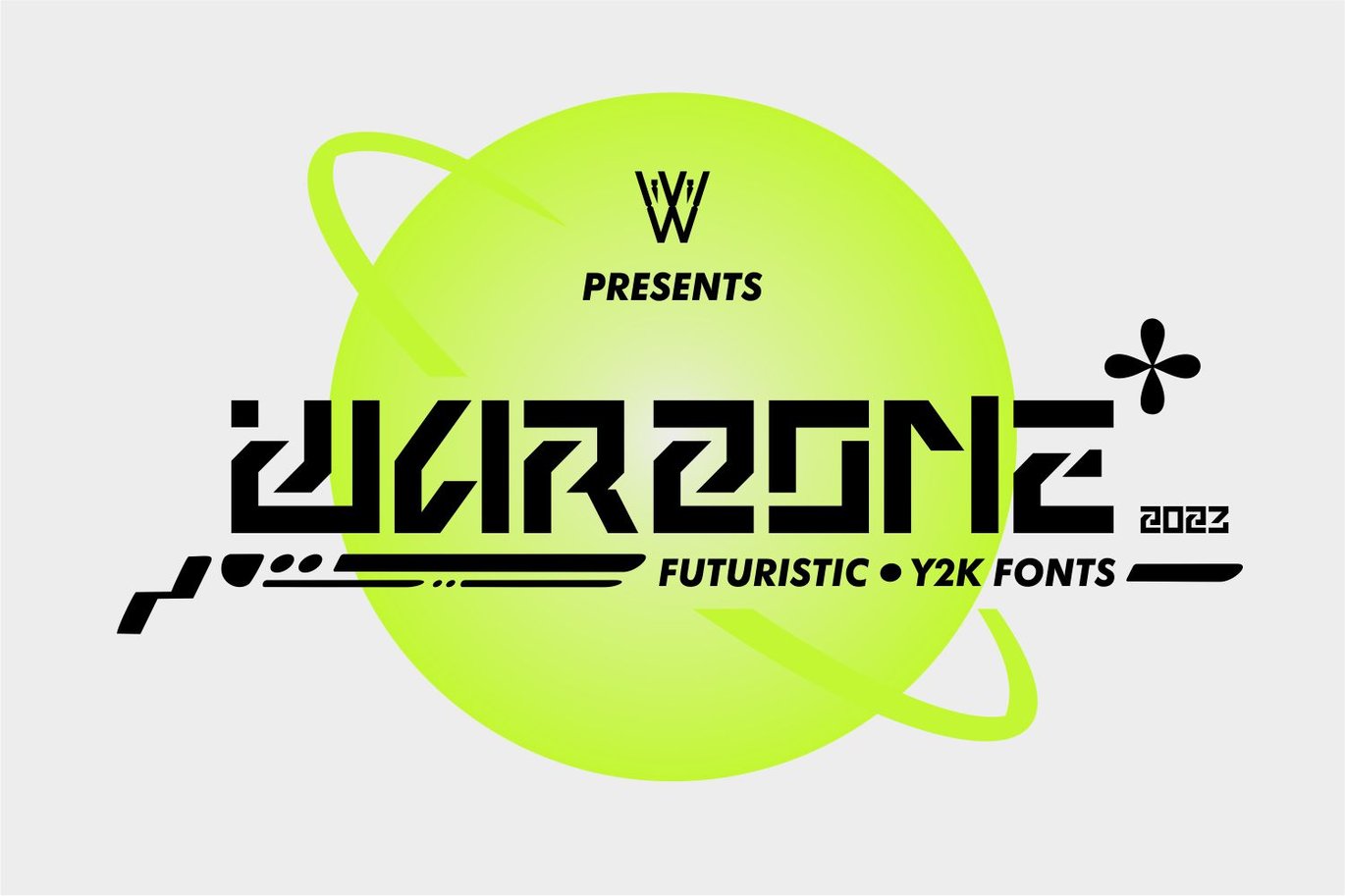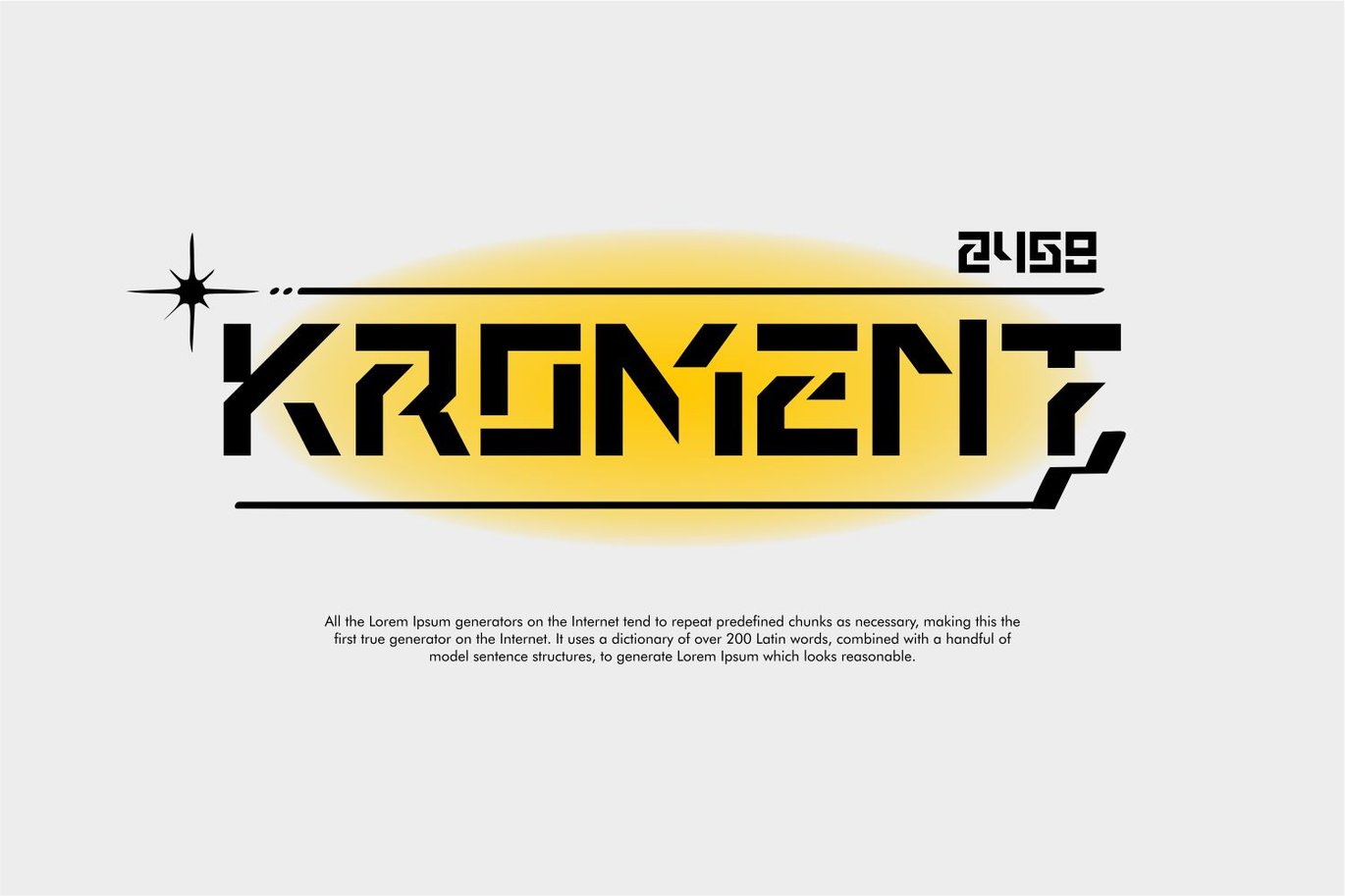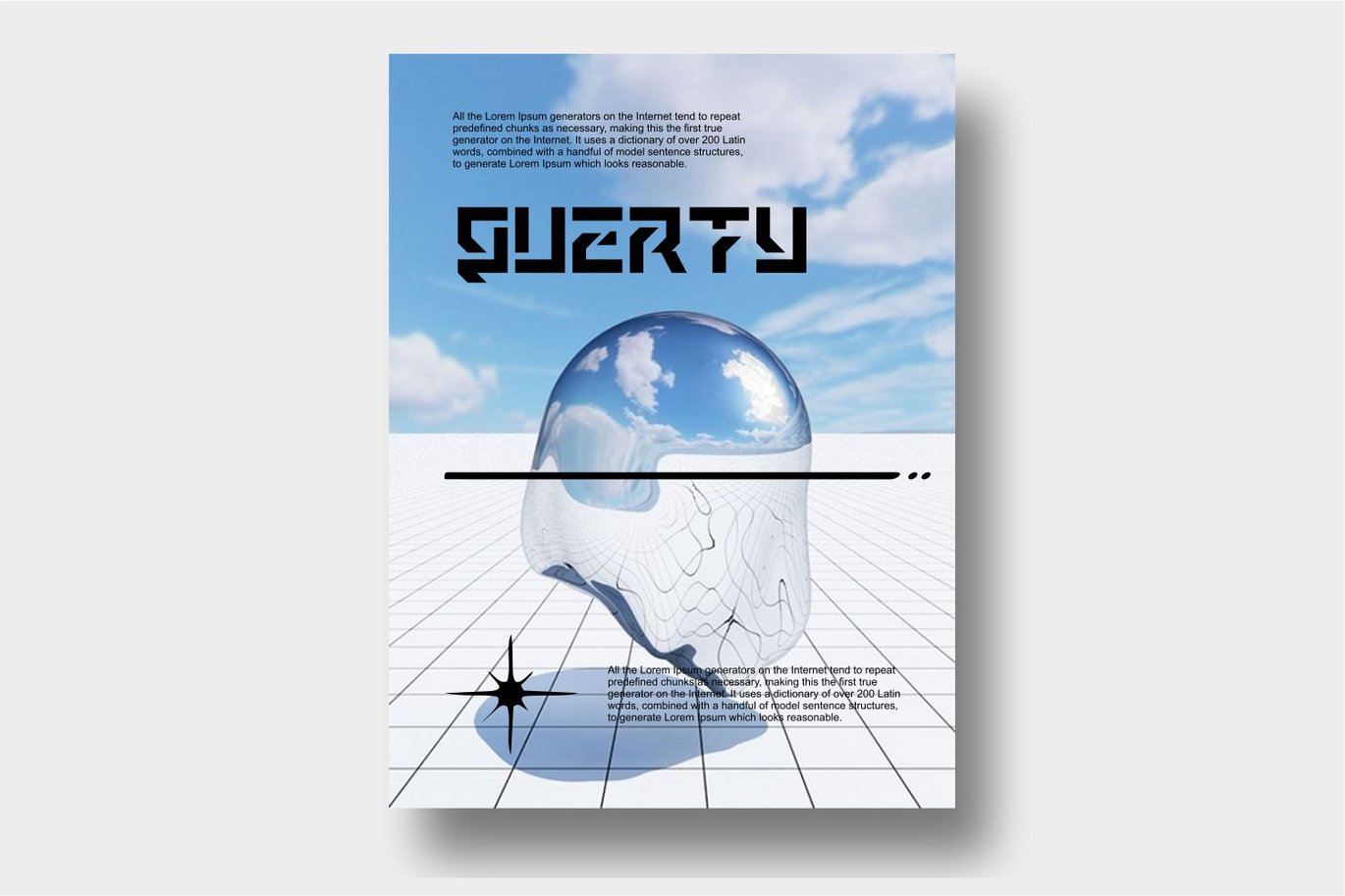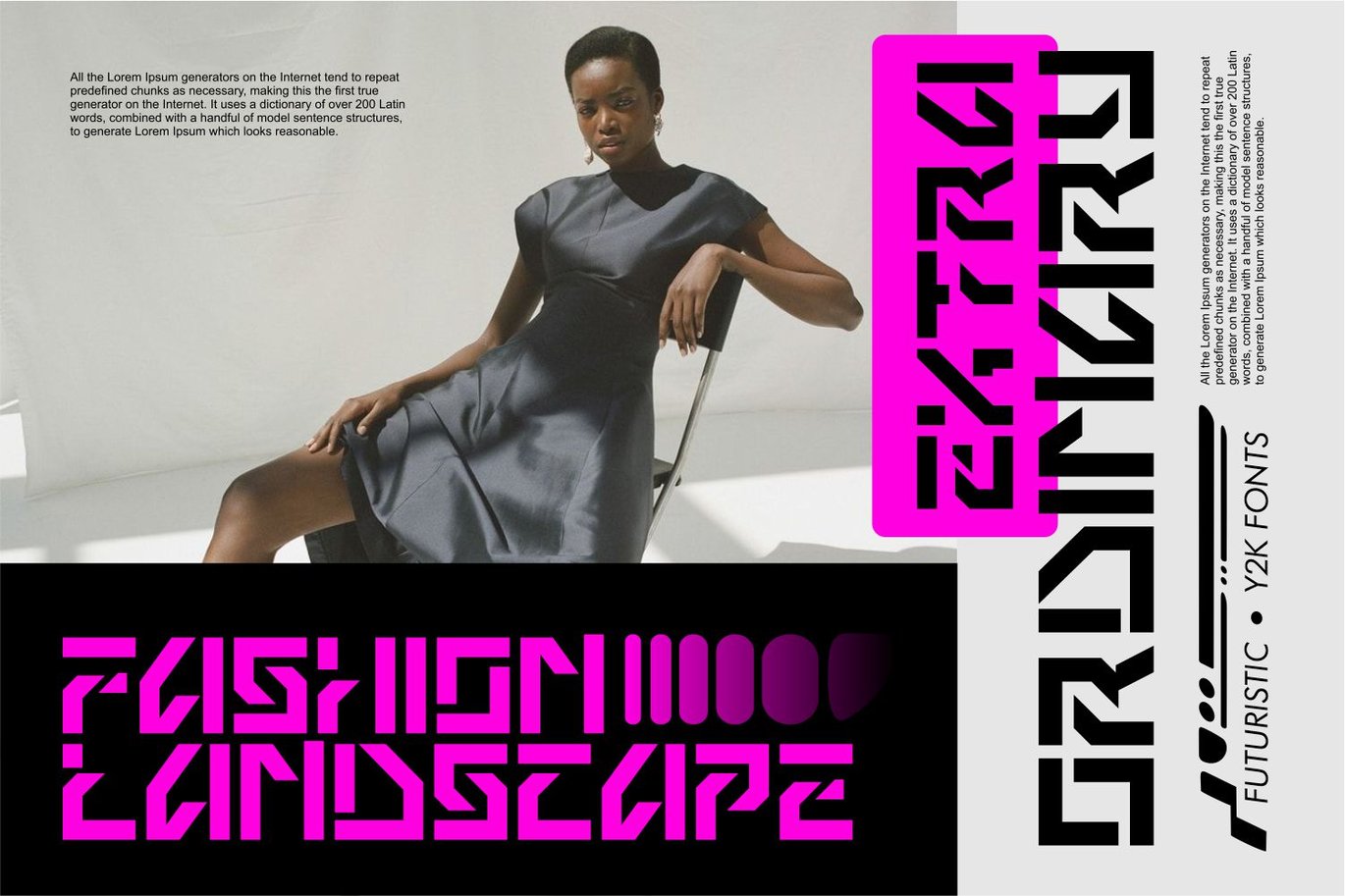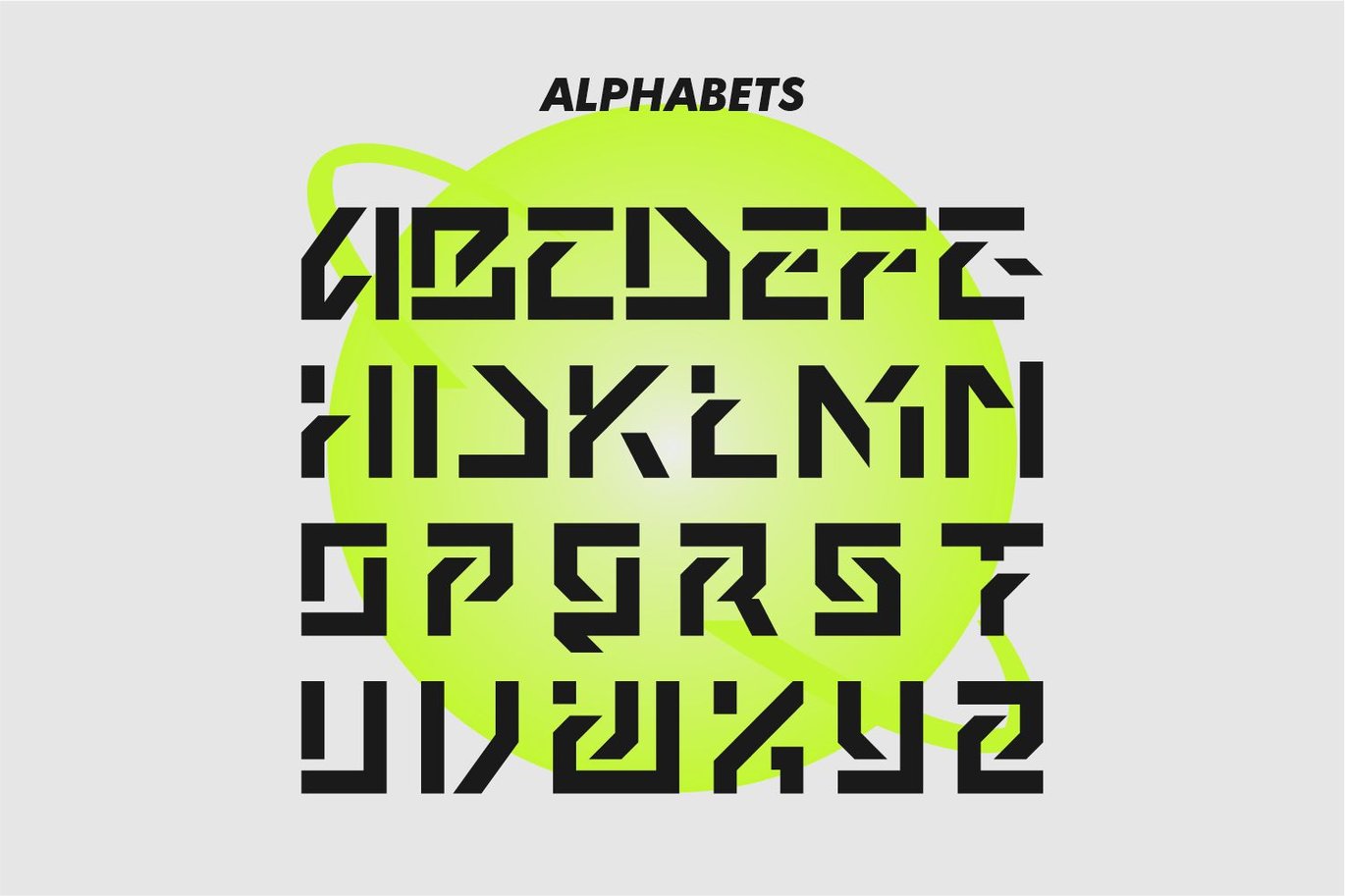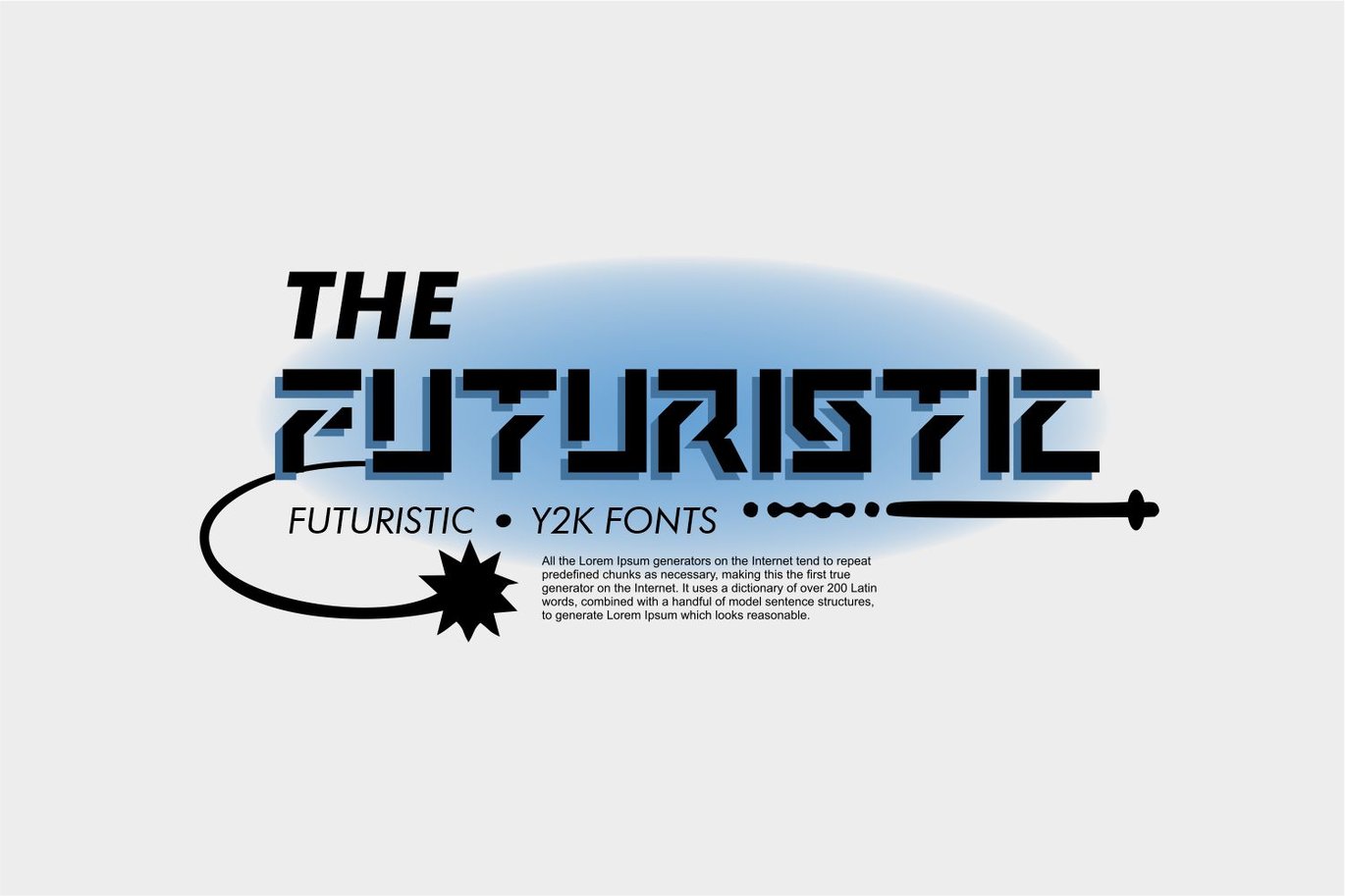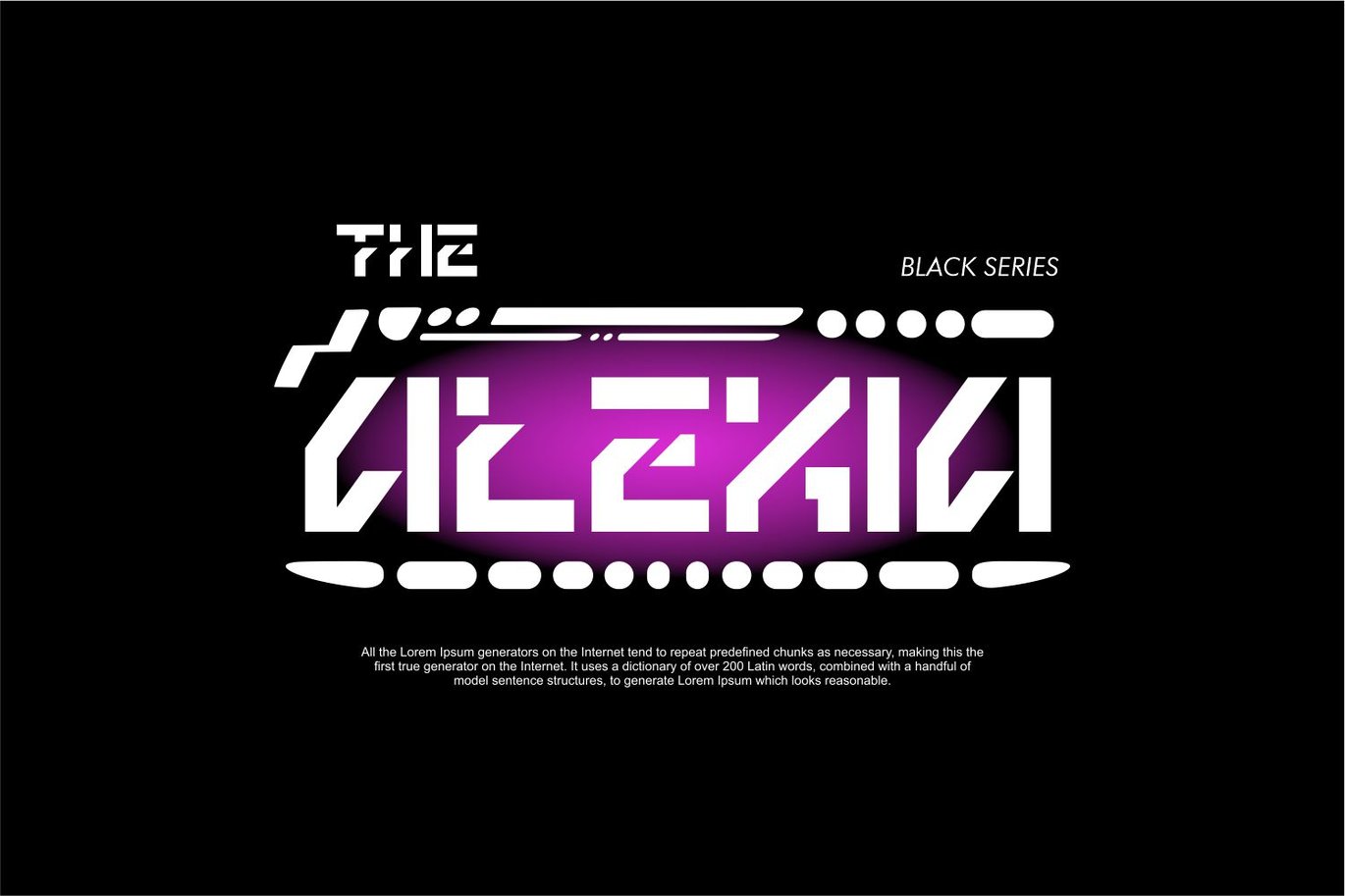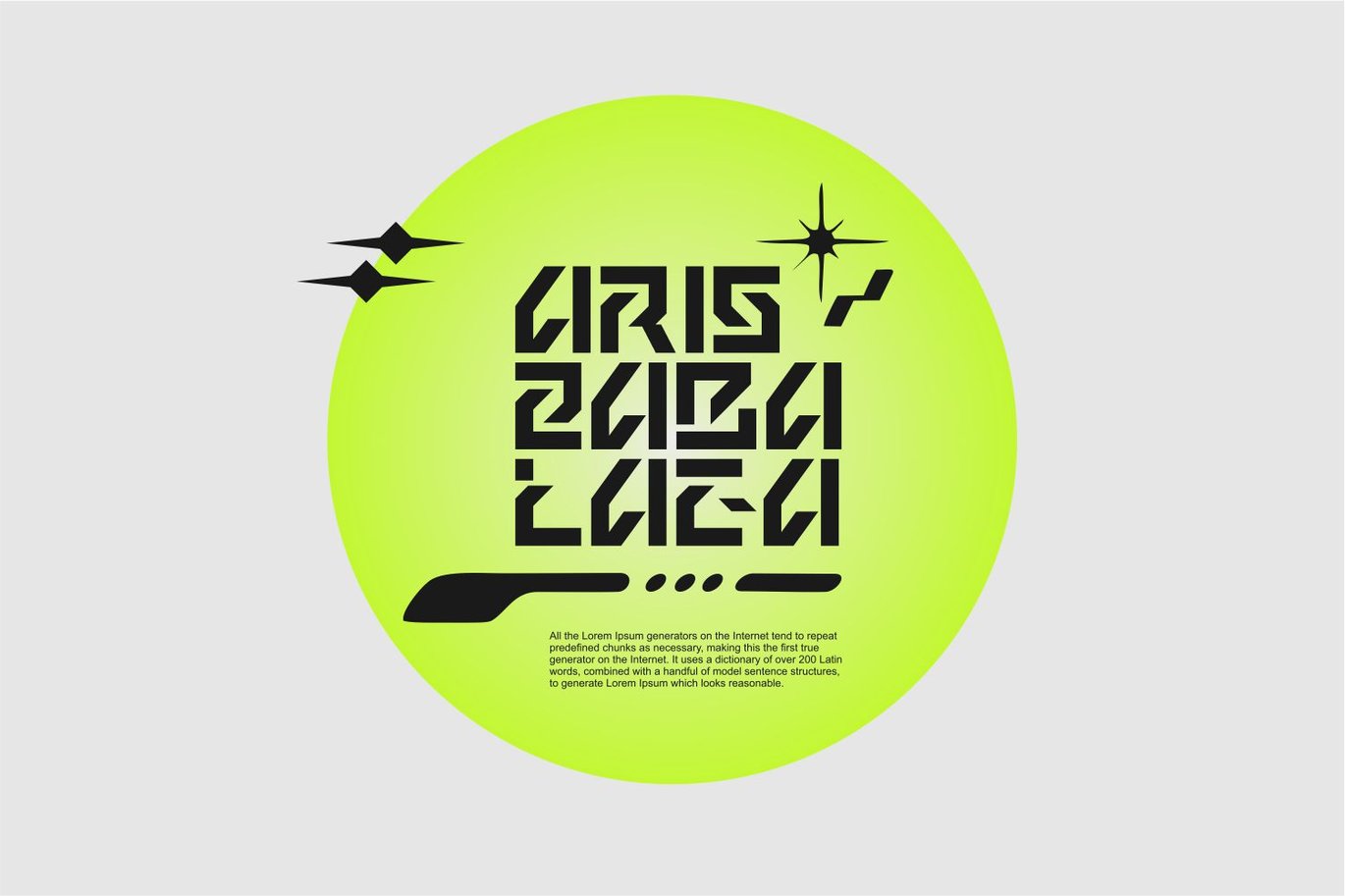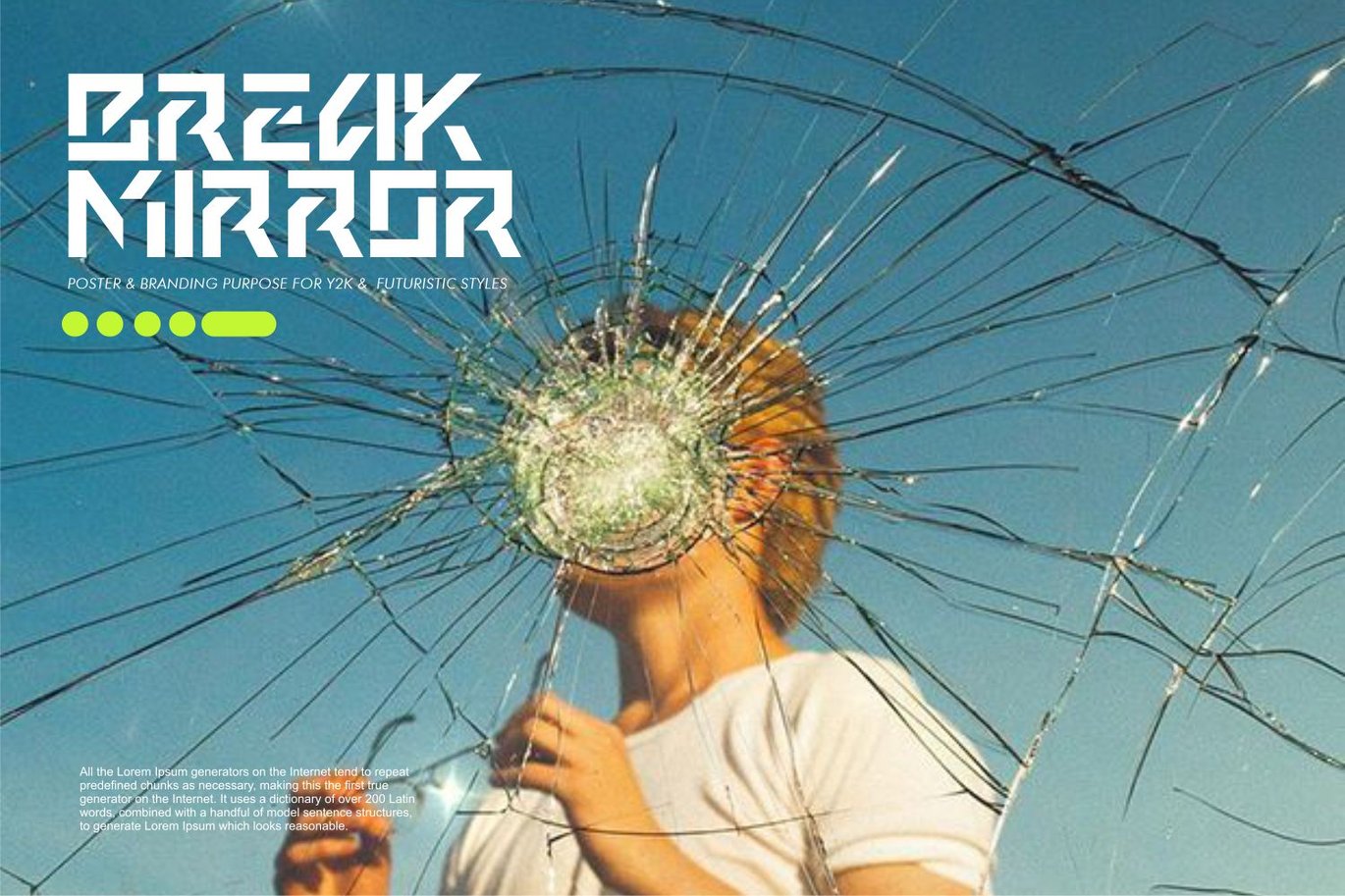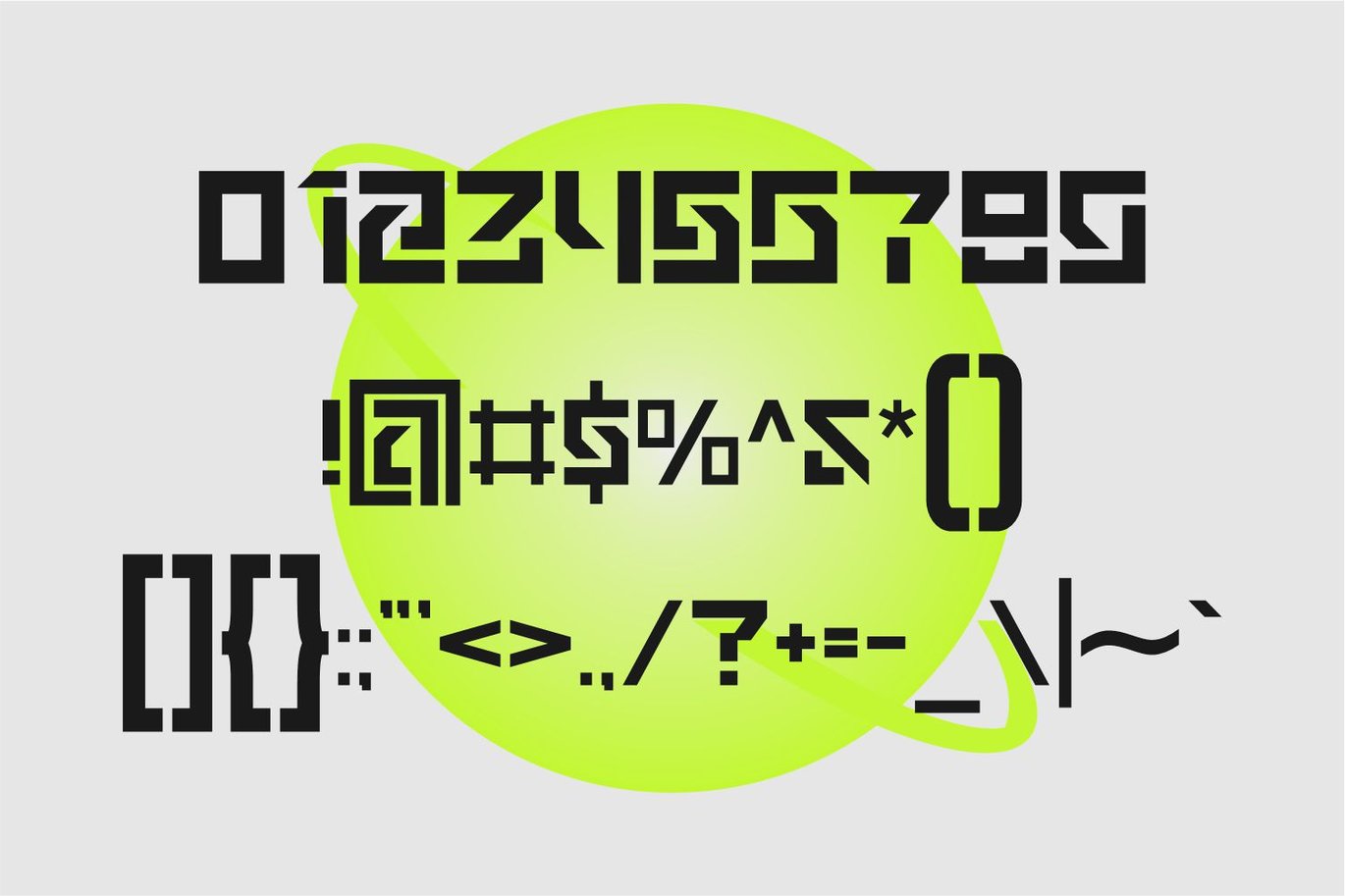
Warzone Y2K Futuristic fonts
Y2K style is one of the fashion trends used in the 90s to early 2000s. Y2k style is identical to the combination of striking and eccentric colors. Plus some other accessories to complete the outfit. Many Gen Z young people today like to mix and match outfits with a y2k style look.
by mixing Y2K and futurisitic styles makes the Y2K concept not outdated, and makes the trend a recycled style from the mid-90’s to when in 2023 it has undergone an evolution.
In my perspective, the concept and philosophy of this font can be summed up in the first sentence in this paragraph. because that philosophy can be presented through the warzone font style which has a geometric plane shape but with a dashed plane style.
Warzone is very suitable for use in designs that carry the theme of futuristic and Y2K. for physical application it is suitable for a poster design, magazine, comic, logo, Embrodiery bag, Embrodiery jacket, Embrodiery sweeter and others.